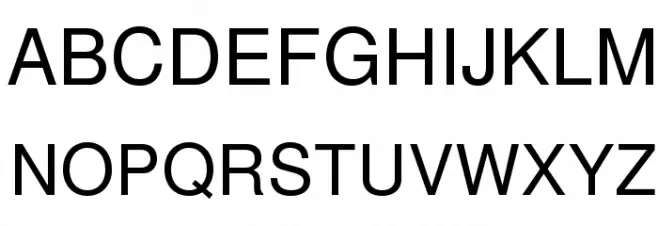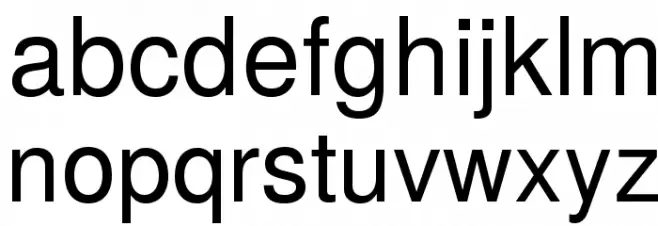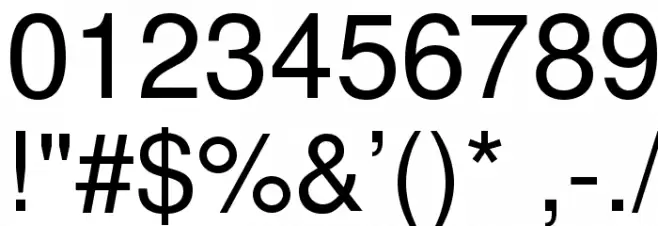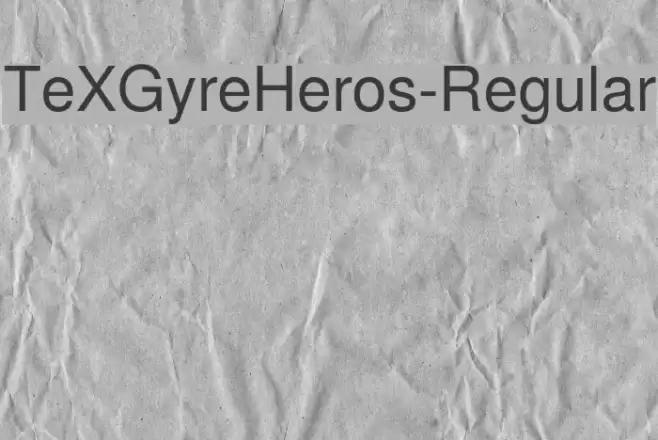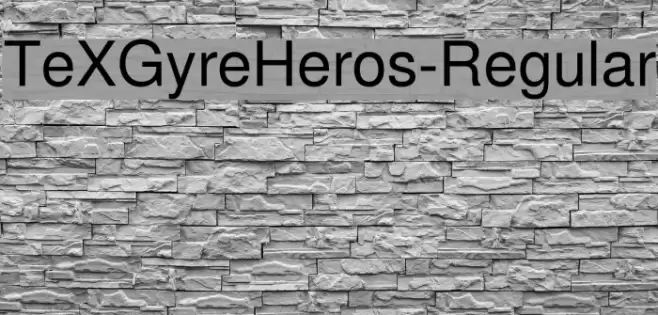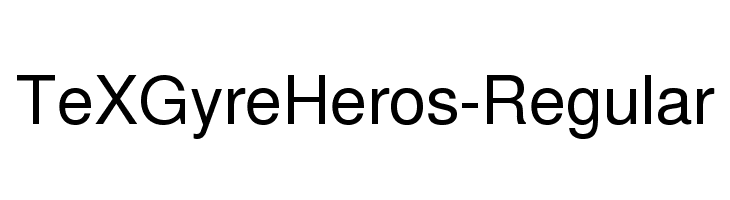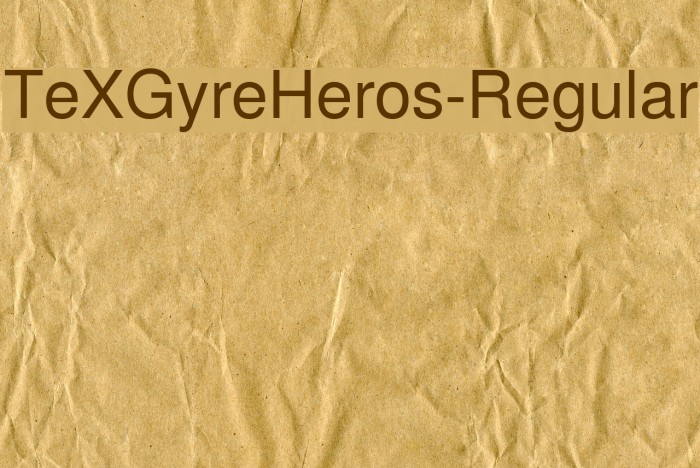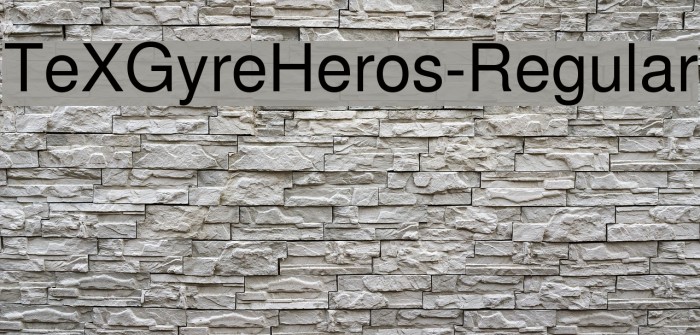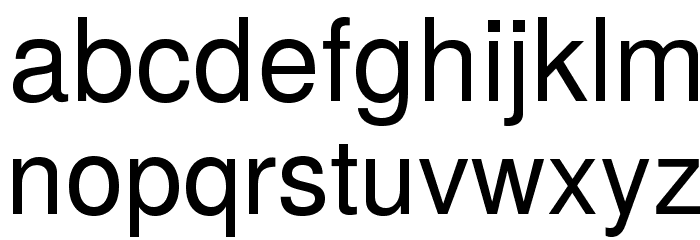
TeXGyreHeros-Regular
This font features a clean and modern sans-serif design, characterized by its straightforward and highly legible letterforms. The strokes are consistent in weight, providing a uniform appearance across all characters. Its geometric shapes and open counters contribute to its readability, making it suitable for a wide range of applications. The font maintains a balanced proportion between height and width, ensuring clarity in both large and small sizes. Its simplicity and neutrality make it versatile for various design needs.
A clean, modern sans-serif font with uniform strokes and excellent readability.